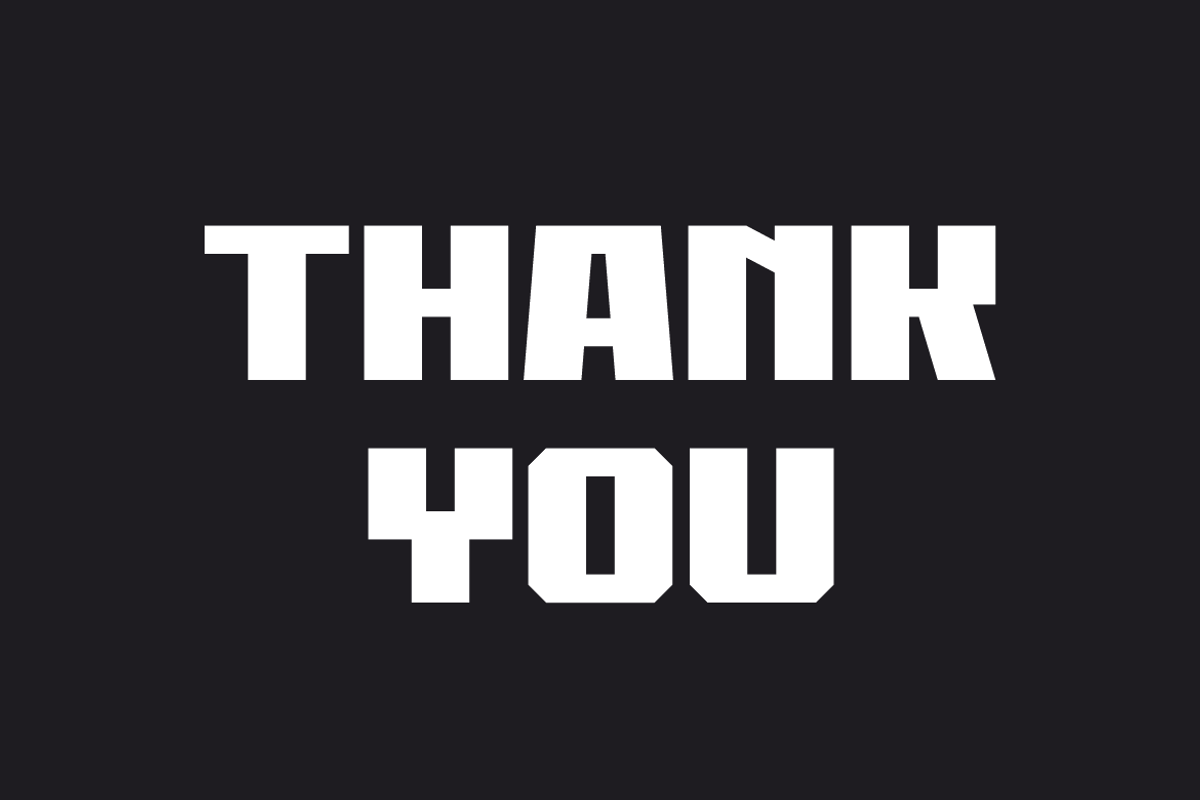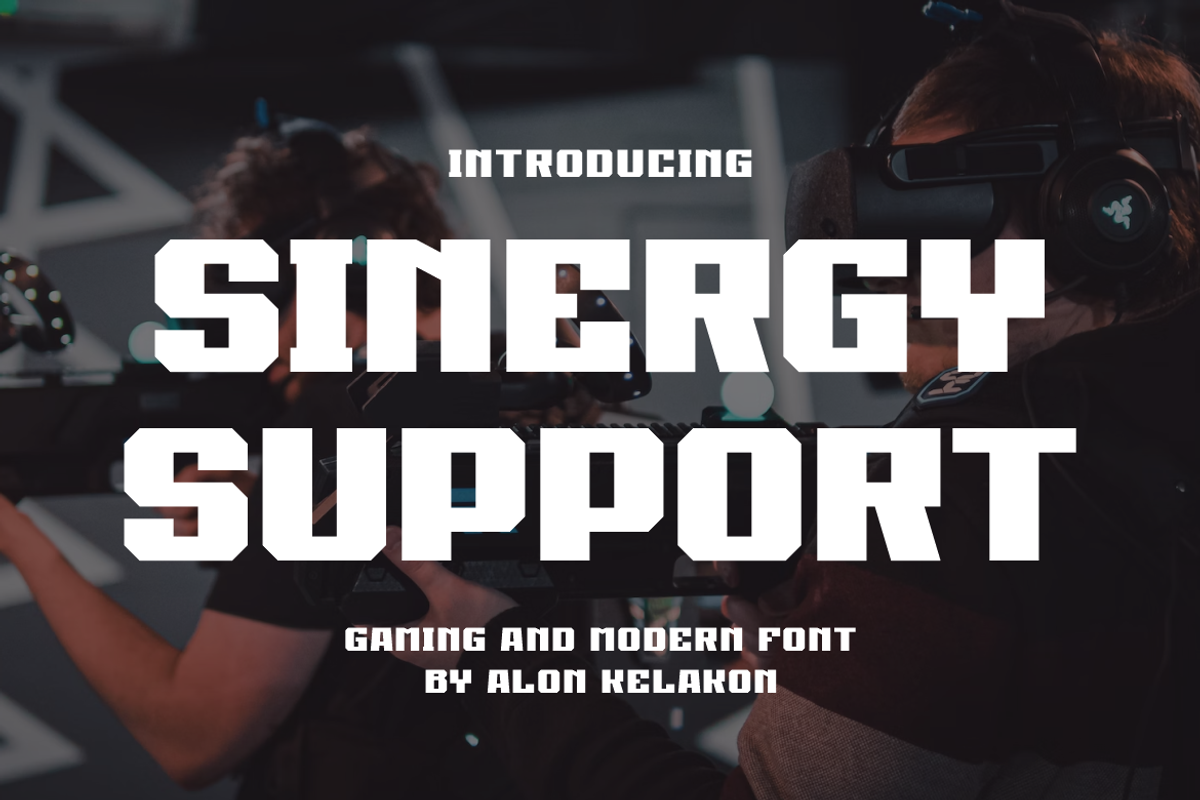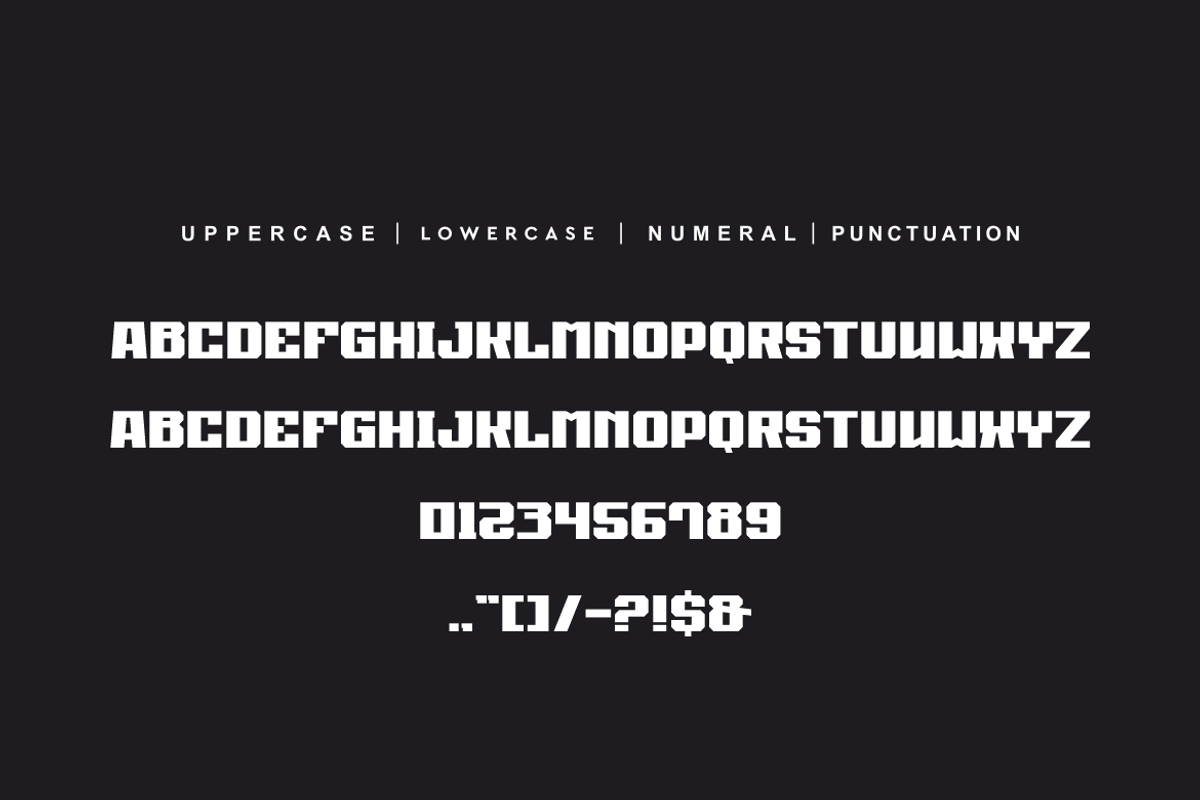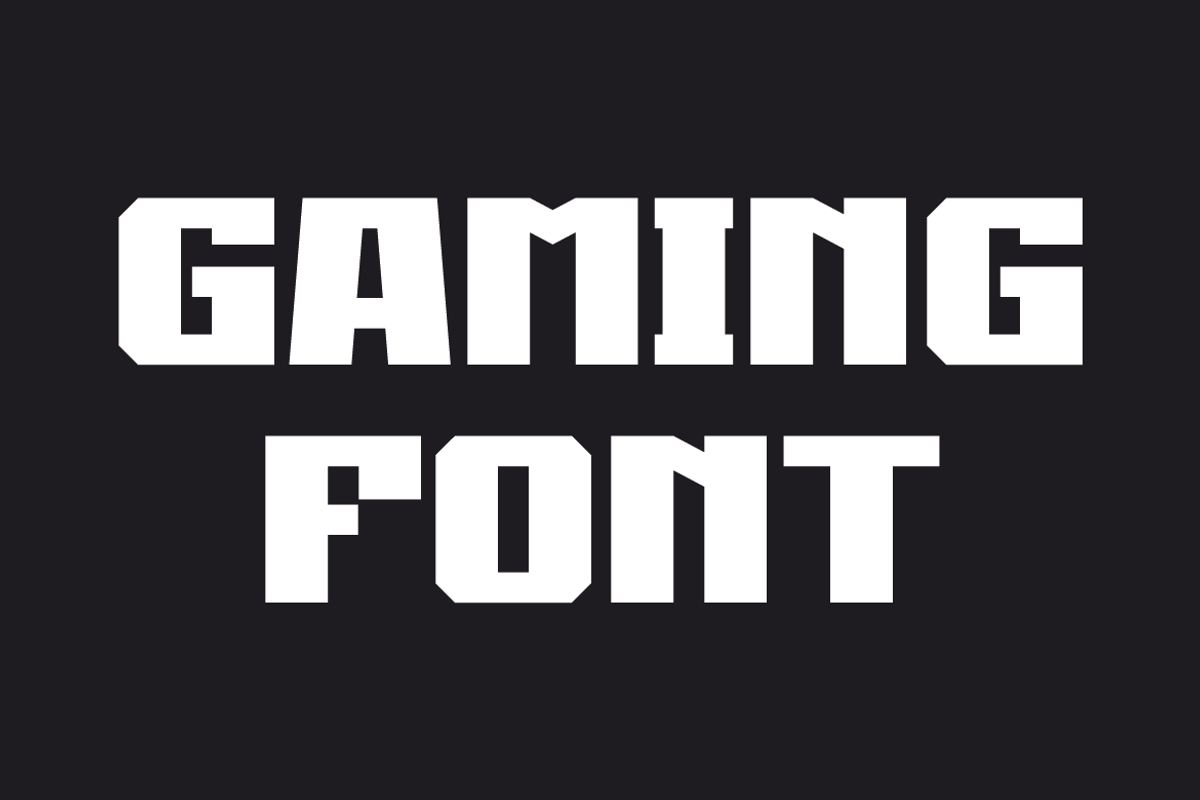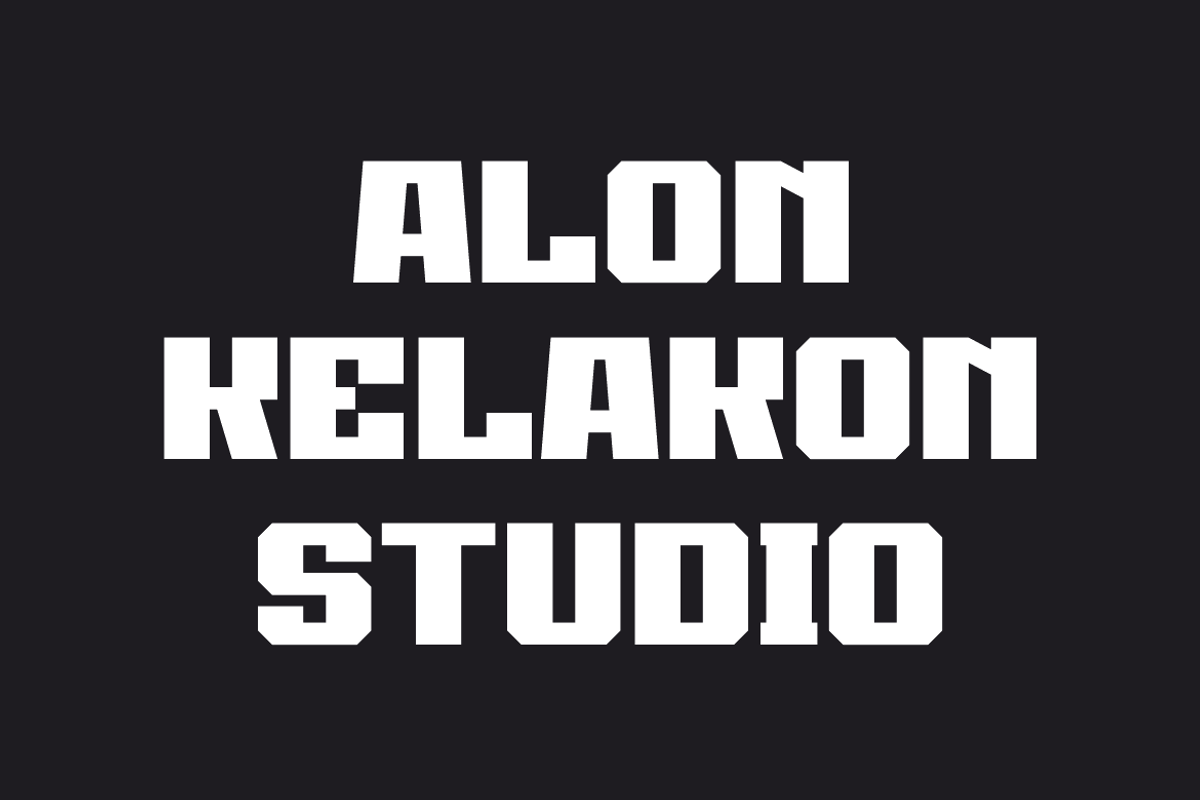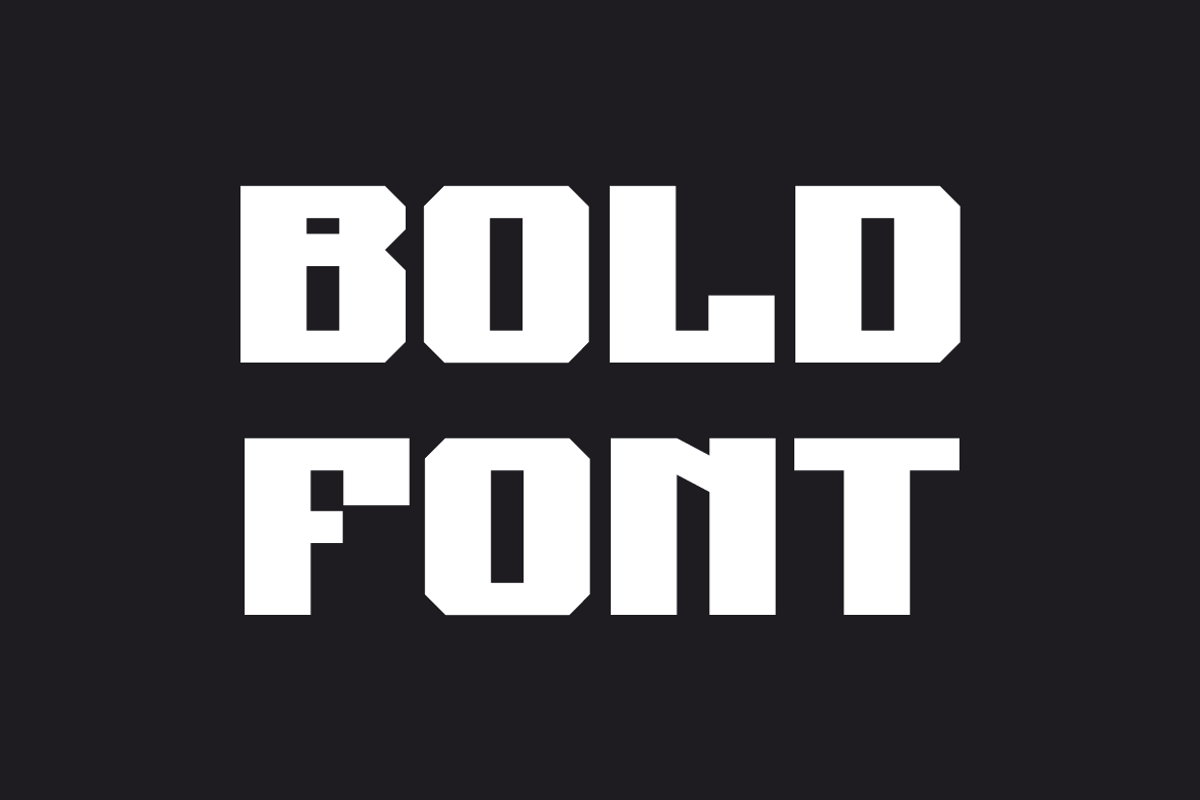
Sinergy Support
Sinergy Support Font is unique . Ready to use for your design like labeling, movie sceen, poster, movie title, gigs, album covers, logos, and much more.